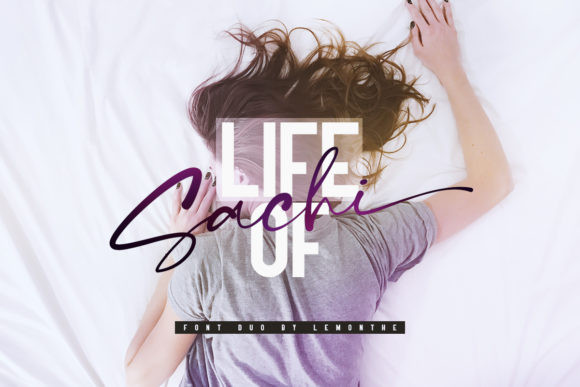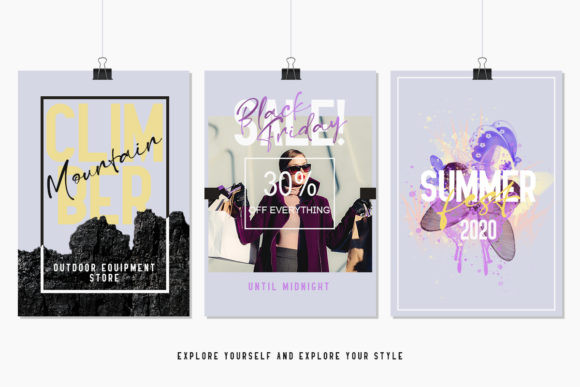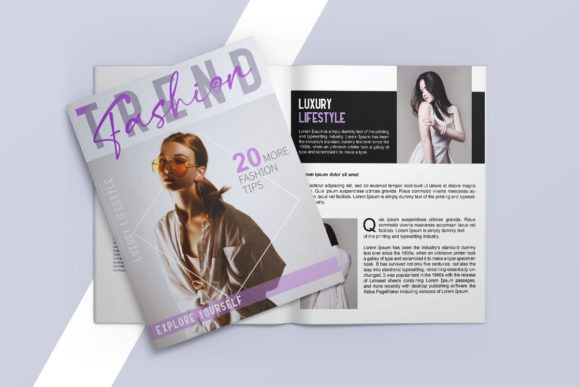
Life of Sachi Font
Life of Sachi is a spectacular duo font (sans serif and script). Incredibly versatile, this font fits a wide pool of designs, elevating them to the highest levels. Add this font to your favorite creative ideas and notice how it makes them come alive!